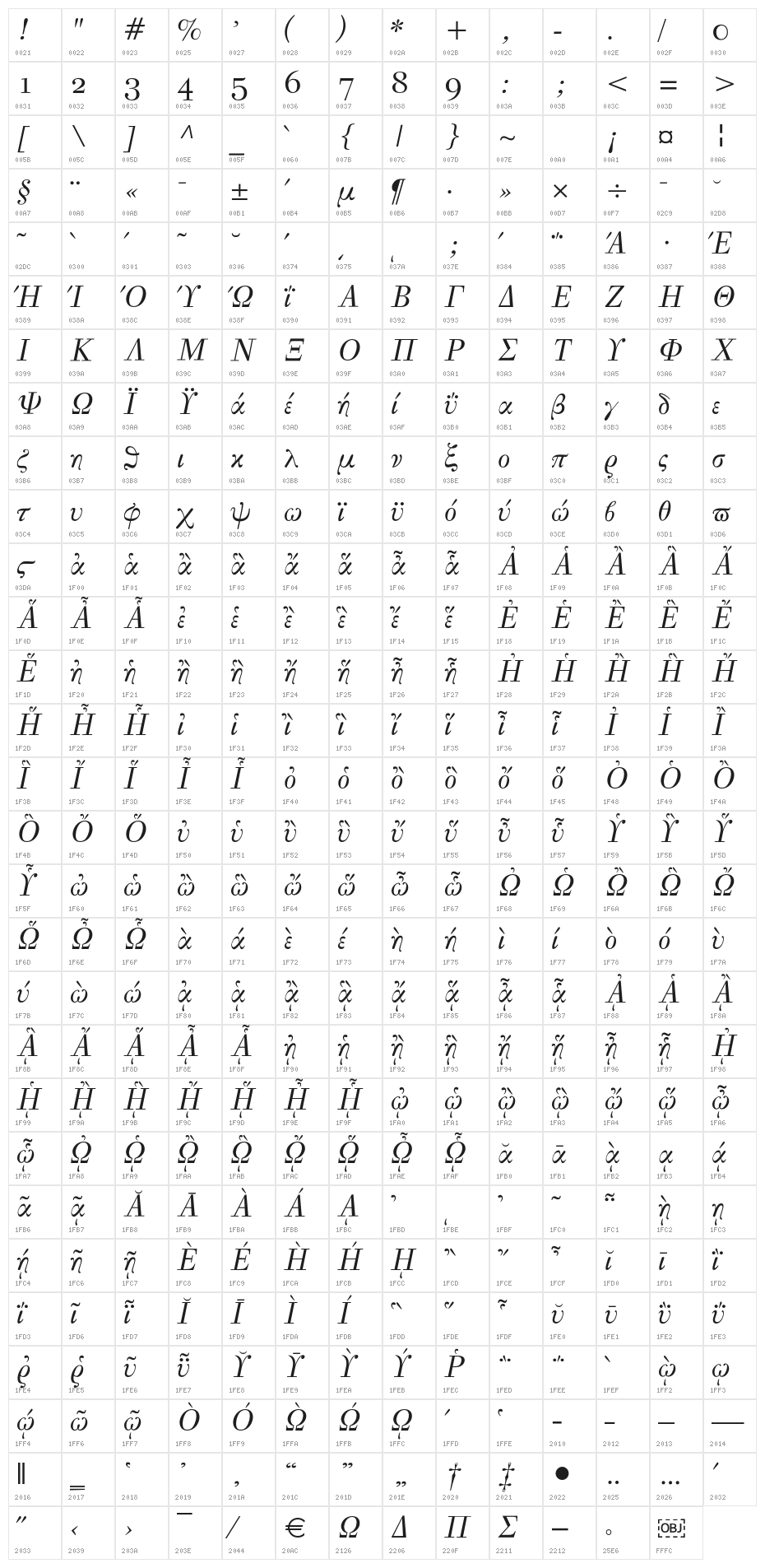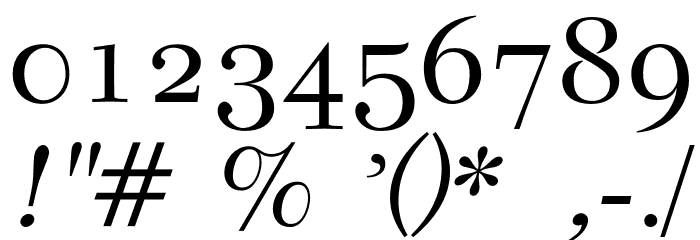
GFSBodoniClassic-Regular Font
GFSBodoniClassic-Regular Description
This font exhibits a classic and elegant style, characterized by its high contrast between thick and thin strokes. The serifs are sharp and pronounced, giving it a sophisticated and timeless appearance. The uppercase letters are stately and balanced, while the lowercase letters maintain a graceful flow. The numerals are distinct and clear, ensuring readability. Special characters are designed with the same attention to detail, making them harmonious with the rest of the typeface. This font is ideal for projects that require a touch of elegance and tradition, such as formal invitations, editorial design, or branding for luxury products.
| Proposed Projects | Ideal for formal invitations, editorial design, luxury branding, and classic book typesetting. |